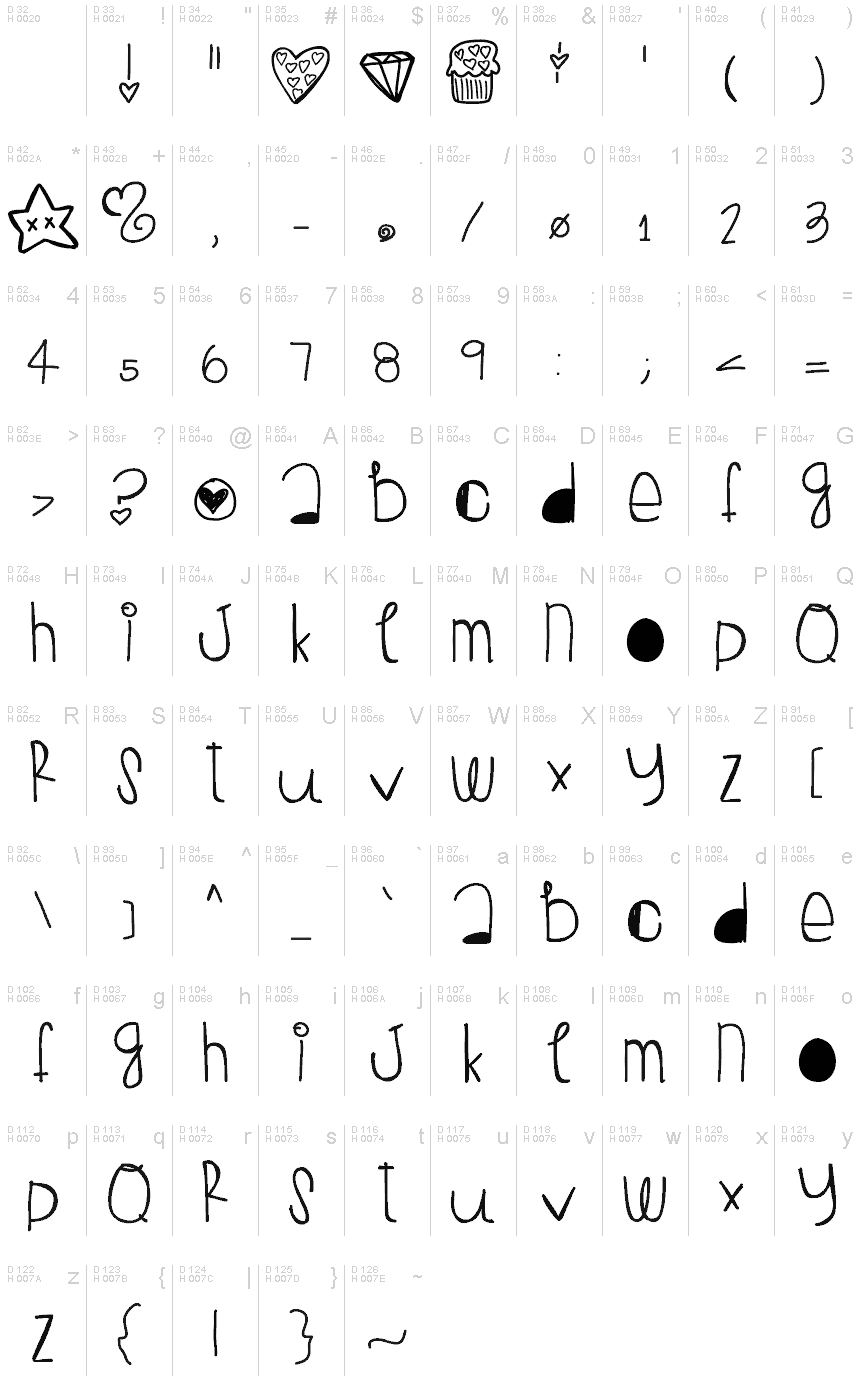
PeanutButterJelly
Peanut Butter Jelly is a delightfully playful and whimsical font designed by Des Gomez. Its handwritten style, with its light and airy strokes, evokes a sense of warmth and whimsy, making it an ideal choice for creative projects.
The organic, flowing letters and the subtle variations in the line weights contribute to a charming, personalized aesthetic. Peanut Butter Jelly's versatility allows it to be used in a wide range of applications, from children's book illustrations to greeting cards, packaging design, and even branding for small businesses or personal projects.
Its distinctive character and inviting personality make it a standout choice for designers seeking to add a touch of personality and playfulness to their work.
The organic, flowing letters and the subtle variations in the line weights contribute to a charming, personalized aesthetic. Peanut Butter Jelly's versatility allows it to be used in a wide range of applications, from children's book illustrations to greeting cards, packaging design, and even branding for small businesses or personal projects.
Its distinctive character and inviting personality make it a standout choice for designers seeking to add a touch of personality and playfulness to their work.